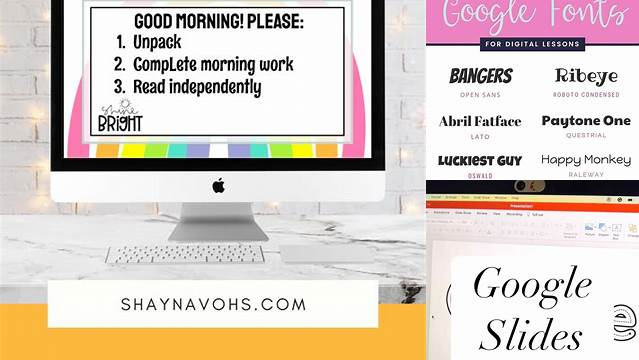
Cute Google Slides Fonts For Teachers: Make Your Slides Pop!
Hey teachers! Want to make your Google Slides presentations super engaging? Of course, you do! A big part of that is picking the right fonts. But with so many options out there, it can feel overwhelming, right? Don't worry, guys, we've got you covered! This guide is all about cute Google Slides fonts for teachers that will make your lessons pop and keep your students hooked. Let's dive in and find some fonts that will make your presentations shine!
1. Fun and Playful Fonts for Elementary School
When you're teaching the little ones, you need fonts that are fun, playful, and super easy to read. Think big, rounded letters that feel friendly and approachable. Cute Google Slides fonts in this category can really help capture their attention and make learning feel like a game. Imagine using a bubbly font for a lesson on the alphabet or a whimsical font for a storybook presentation. The right font can set the whole tone! Consider fonts that have a hand-drawn feel or those that include little details that add personality. These fonts can make your slides more visually appealing and help your students connect with the material on a more personal level. Remember, the goal is to create a positive and engaging learning environment, and the right font is a small but mighty tool in achieving that. So, let's explore some specific font suggestions that fit this playful vibe. We'll look at fonts that are not only cute but also highly readable, ensuring that your message gets across clearly while keeping things light and fun. Finding the perfect balance between playfulness and clarity is key when choosing fonts for elementary school.
2. Best Handwriting Fonts for Google Slides
Handwriting fonts can add a personal touch to your Google Slides, making them feel more authentic and less like a generic presentation. These cute Google Slides fonts are perfect for adding emphasis, creating titles that stand out, or even for entire slides that mimic handwritten notes. But, guys, you've gotta be careful! Some handwriting fonts can be difficult to read, especially on a screen. So, readability is key! Look for fonts that have a clear, legible style, even when displayed in smaller sizes. Think about how the font will look on different devices, too – what looks great on a large monitor might not translate well to a tablet or phone. When used sparingly and effectively, handwriting fonts can bring a unique charm to your presentations. They can make your content feel more human and relatable, which can be especially helpful for connecting with your students. Consider using them for headings, quotes, or key takeaways to draw attention to important information. Experiment with different sizes and colors to see what works best for your style and the overall design of your slides. Remember, the goal is to enhance your message, not distract from it. So, choose wisely and use these fonts to their full potential.
3. Modern and Stylish Fonts for Middle School
As students get older, their tastes change, and your fonts should reflect that! For middle schoolers, you'll want to lean towards modern and stylish fonts that feel fresh and contemporary. These cute Google Slides fonts can help you create presentations that look professional and engaging, without being too childish. Think clean lines, geometric shapes, and fonts that have a bit of an edge. A well-chosen modern font can make your slides look polished and sophisticated, which can help you command attention in the classroom. Consider fonts that are versatile enough to be used in a variety of contexts, from title slides to body text. Look for fonts that have a clear hierarchy, with distinct styles for headings and paragraphs. This will help you organize your content and make it easier for your students to follow along. Experiment with different font pairings to find combinations that complement each other and create a visually appealing design. Remember, the goal is to create presentations that are not only informative but also aesthetically pleasing. So, choose fonts that are both stylish and readable, and you'll be well on your way to engaging your middle school students.
4. Professional Fonts for High School Presentations
For high school presentations, you'll want fonts that are professional, polished, and easy to read. These cute Google Slides fonts should convey authority and credibility, while still being visually appealing. Think classic serif fonts for body text and clean sans-serif fonts for headings. A professional font choice can make a big difference in how your presentation is perceived. It shows that you've put thought and effort into your materials, and it can help you establish yourself as a knowledgeable and credible source. Consider fonts that are widely used and respected in academic and professional settings. These fonts tend to have a timeless quality and are less likely to look dated or trendy. Pay attention to the spacing and kerning of the font, as this can affect its readability. A well-spaced font will be easier on the eyes and will help your students stay focused on the content. Experiment with different font sizes and weights to create a clear visual hierarchy. Use bold or italic styles sparingly to emphasize key points, but avoid overusing them, as this can make your slides look cluttered. Remember, the goal is to communicate your message effectively, so choose fonts that are both professional and easy to read.
5. Cursive Fonts: When and How to Use Them
Cursive fonts can add a touch of elegance and personality to your Google Slides, but they need to be used sparingly. These cute Google Slides fonts are best for titles, quotes, or short phrases where you want to make a statement. But, guys, seriously, avoid using cursive fonts for large blocks of text! They can be difficult to read, especially on a screen, and can quickly become frustrating for your students. Think of cursive fonts as accent pieces – they're there to add a little flair, not to carry the bulk of your message. When choosing a cursive font, look for one that is legible and well-designed. Some cursive fonts can be overly ornate or difficult to decipher, so prioritize clarity over fanciness. Consider the overall tone of your presentation and choose a cursive font that fits the mood. A formal cursive font might be appropriate for a history lesson, while a more playful cursive font might be better for a creative writing activity. Experiment with different colors and sizes to see what works best. A larger cursive font can make a bold statement, while a smaller cursive font can add a subtle touch of elegance. Remember, the key is to use cursive fonts intentionally and strategically to enhance your message, not distract from it. So, use them wisely and enjoy the touch of personality they can add to your slides.
6. Fonts to Avoid in Your Google Slides Presentations
Just as there are fonts that can make your Google Slides pop, there are also fonts that you should definitely avoid. These cute Google Slides fonts are often overused, difficult to read, or simply outdated. Think Comic Sans, Papyrus, and other fonts that have become clichés in the design world. Using these fonts can make your presentation look unprofessional and can even undermine your message. Another type of font to avoid is anything that is too decorative or ornate. While a little flair can be nice, fonts that are overly stylized can be difficult to read and can distract from your content. Stick to fonts that are clean, clear, and easy on the eyes. Consider your audience when choosing fonts, too. What might be appropriate for a fun, casual presentation could be completely wrong for a more formal setting. When in doubt, err on the side of simplicity and choose fonts that are widely recognized and respected. Remember, the goal is to communicate your message effectively, so choose fonts that will help you do that, not hinder you. Avoiding these fonts will help you create presentations that are polished, professional, and engaging.
7. Pairing Fonts Like a Pro
One of the secrets to creating visually appealing Google Slides is to pair your fonts effectively. This means choosing two fonts that complement each other and work well together to create a balanced and harmonious design. These cute Google Slides fonts combinations can elevate your presentation from good to great! A common approach is to pair a serif font with a sans-serif font. Serif fonts (like Times New Roman or Georgia) have small decorative strokes at the end of their letters, while sans-serif fonts (like Arial or Helvetica) do not. Pairing these two types of fonts can create a nice contrast and make your slides more visually interesting. When choosing fonts to pair, consider their personalities. Do they feel similar in tone and style? Or do they clash? You want to find fonts that work together to convey a consistent message. Experiment with different sizes and weights to create a clear visual hierarchy. Use a larger, bolder font for headings and a smaller, lighter font for body text. This will help you organize your content and make it easier for your students to follow along. Remember, the goal is to create a design that is both aesthetically pleasing and functional. So, choose fonts that work well together to enhance your message and engage your audience. Pairing fonts like a pro takes practice, but with a little experimentation, you can create presentations that are both beautiful and effective.
8. Where to Find Free Google Slides Fonts
Finding the perfect fonts for your Google Slides doesn't have to break the bank! There are tons of free resources available online where you can download high-quality fonts for your presentations. These cute Google Slides fonts are just waiting to be discovered! Google Fonts is a fantastic place to start. It's a library of hundreds of open-source fonts that are free to use for any purpose. You can easily browse and download fonts directly from the Google Fonts website and then add them to your Google Slides. Other websites, like Font Squirrel and DaFont, also offer a wide selection of free fonts. Just be sure to check the licensing terms before you use a font, as some fonts may have restrictions on commercial use. When browsing for fonts, pay attention to the categories and tags. This can help you narrow down your search and find fonts that are specifically suited to your needs. For example, you might search for "handwriting fonts" or "modern sans-serif fonts." Experiment with different fonts and don't be afraid to try something new. The more you explore, the better you'll become at finding fonts that fit your style and your message. Remember, a great font can make a big difference in the overall look and feel of your presentation. So, take the time to find fonts that you love and that will help you communicate effectively with your students. Free fonts are a fantastic resource, so take advantage of them and make your Google Slides shine!
9. Installing Custom Fonts in Google Slides
Want to take your Google Slides presentations to the next level? Installing custom fonts can give you access to a wider range of styles and help you create a unique look for your slides. These cute Google Slides fonts can be yours with just a few clicks! The process is actually pretty simple, guys. First, you'll need to find the font files you want to install. You can download fonts from various websites, such as Google Fonts, Font Squirrel, or DaFont. Make sure the font files are in a compatible format, such as .ttf or .otf. Once you have the font files, open your Google Slides presentation and go to the "Font" menu. At the bottom of the menu, you'll see an option called "More fonts." Click on this, and a new window will open. In the "More fonts" window, you'll see a tab called "My fonts." Click on this tab, and then click the "Upload fonts" button. This will open a file browser where you can select the font files you downloaded. Once you've selected the files, Google Slides will upload them and make them available for use in your presentation. You can now select your custom fonts from the font menu and use them just like any other font. Remember, using custom fonts can help you create a unique and professional look for your Google Slides presentations. So, don't be afraid to experiment and try out different fonts to find the perfect style for your message. Installing custom fonts is a simple way to elevate your presentations and make them stand out from the crowd.
10. Using Fonts to Create Visual Hierarchy
Visual hierarchy is super important in any presentation. It's how you guide your audience's eye and help them understand the structure of your content. And guess what? Fonts play a HUGE role in creating visual hierarchy! These cute Google Slides fonts, when used strategically, can make a world of difference. Think about it: you can use different font sizes, weights, and styles to signal what's most important on a slide. For example, you might use a large, bold font for your main heading, a slightly smaller font for subheadings, and a regular font for body text. This creates a clear visual distinction between the different levels of information. You can also use different font styles to draw attention to key words or phrases. Try using bold or italic text to emphasize important points. Just don't go overboard! Too much bolding or italicizing can actually make your slides look cluttered and confusing. Font color is another tool you can use to create visual hierarchy. Use different colors to highlight key information or to group related items together. But again, keep it simple! Too many colors can be distracting. The key to using fonts to create visual hierarchy is consistency. Stick to a limited number of font styles and sizes throughout your presentation. This will help you create a cohesive and professional look. Remember, the goal is to make your slides easy to read and understand. So, use fonts strategically to guide your audience's eye and help them focus on the most important information.